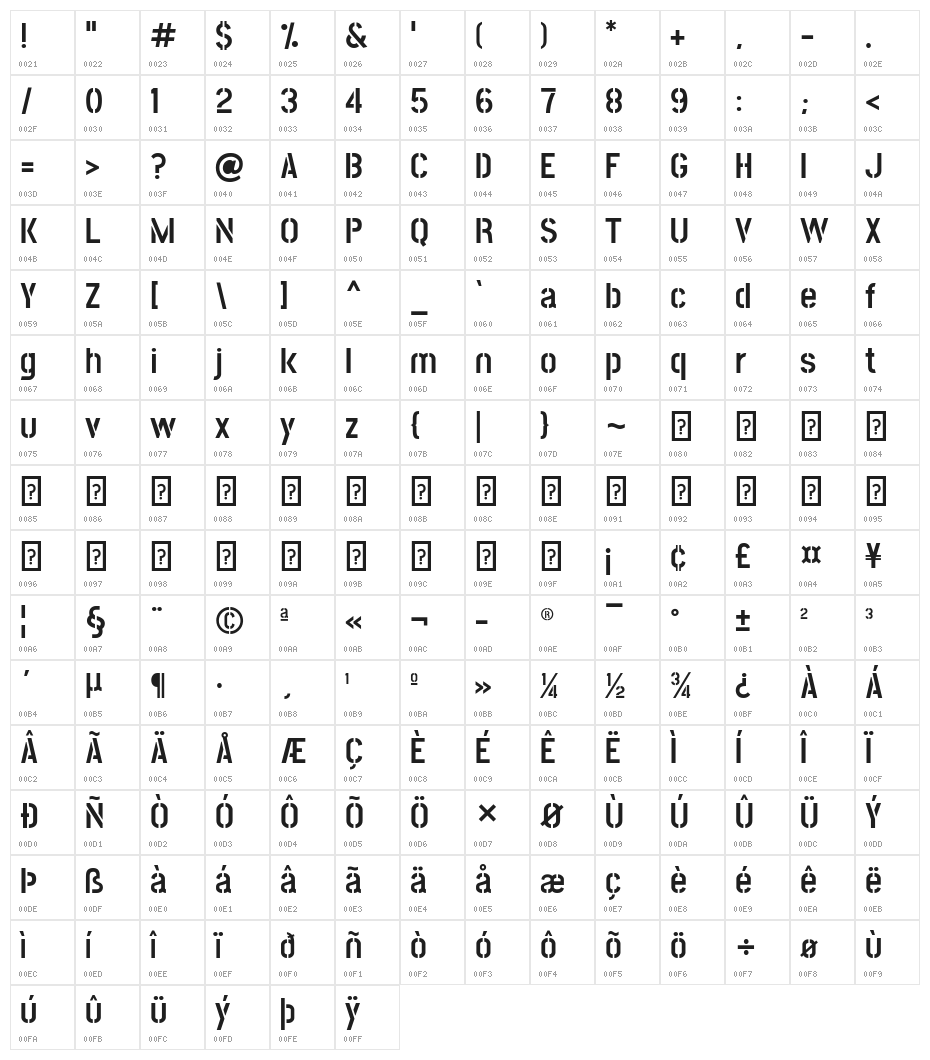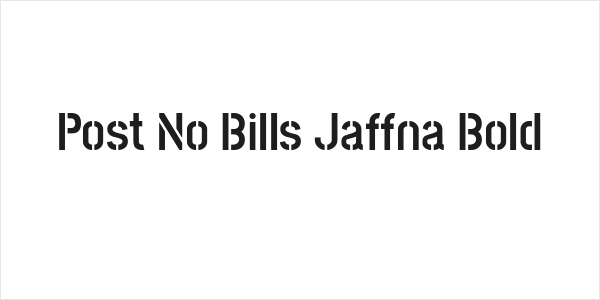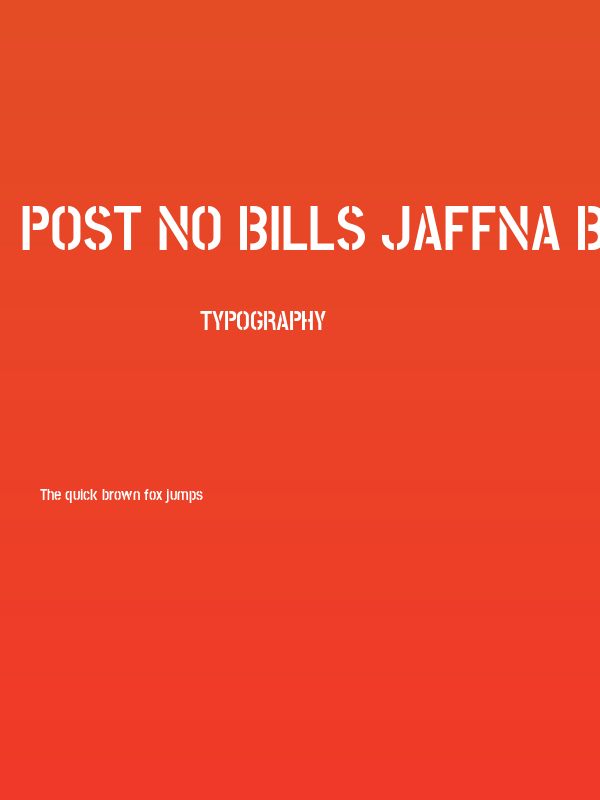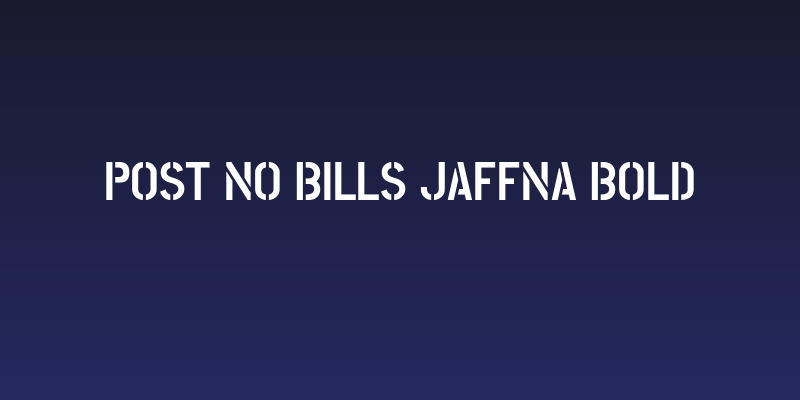
Post No Bills Jaffna Bold Font
Post No Bills Jaffna Bold Description
This bold, geometric typeface features a unique stencil-like design with distinct cutouts in each character, creating a modern and industrial feel. The uppercase and lowercase letters maintain a consistent height and width, enhancing readability while adding a touch of avant-garde style. The numerals and special characters follow the same design principles, ensuring uniformity across all glyphs. The font's strong visual impact makes it suitable for attention-grabbing headlines and branding projects.
| Proposed Projects | Ideal for posters, signage, branding, and any project requiring a bold, modern look. |